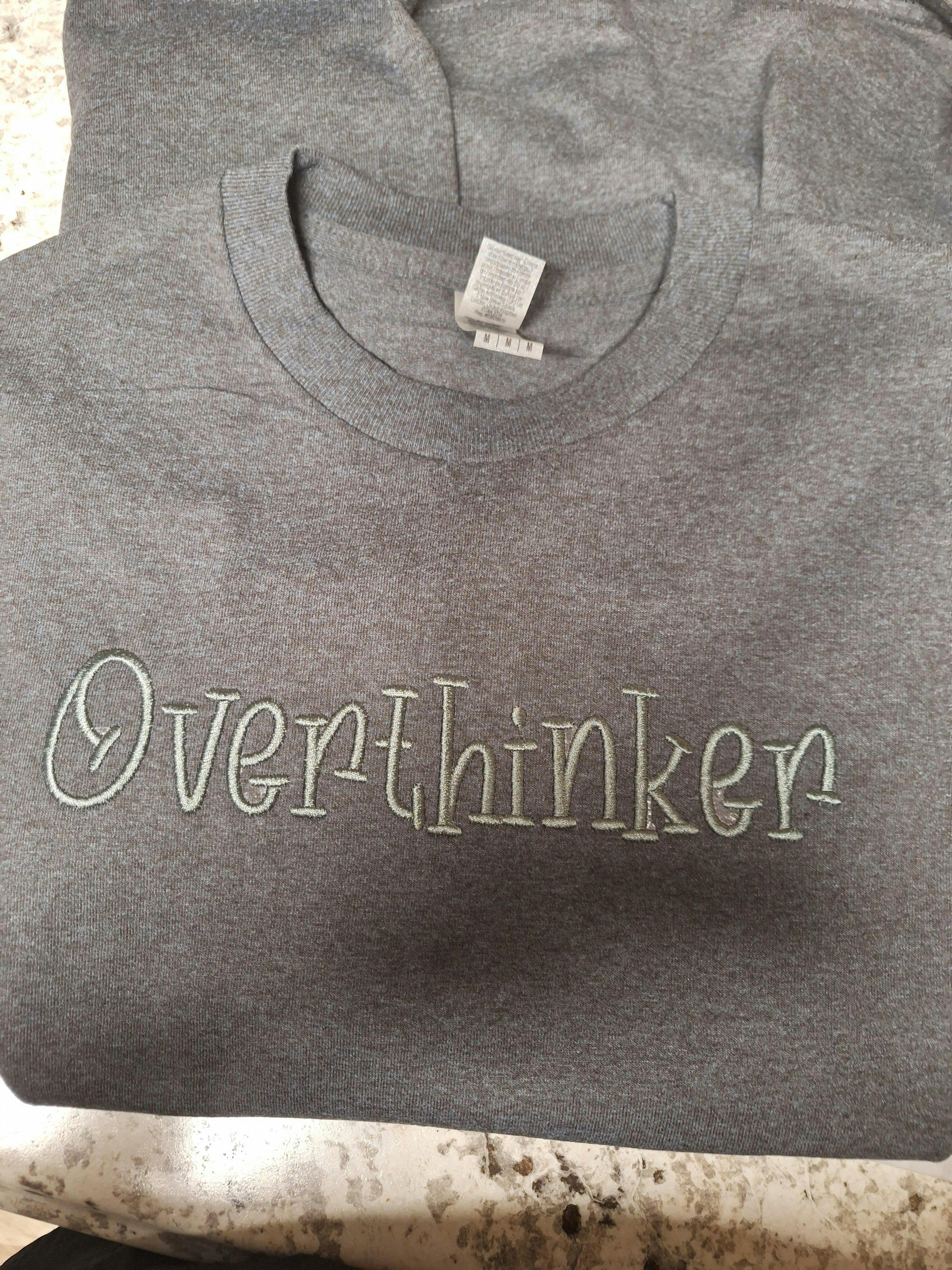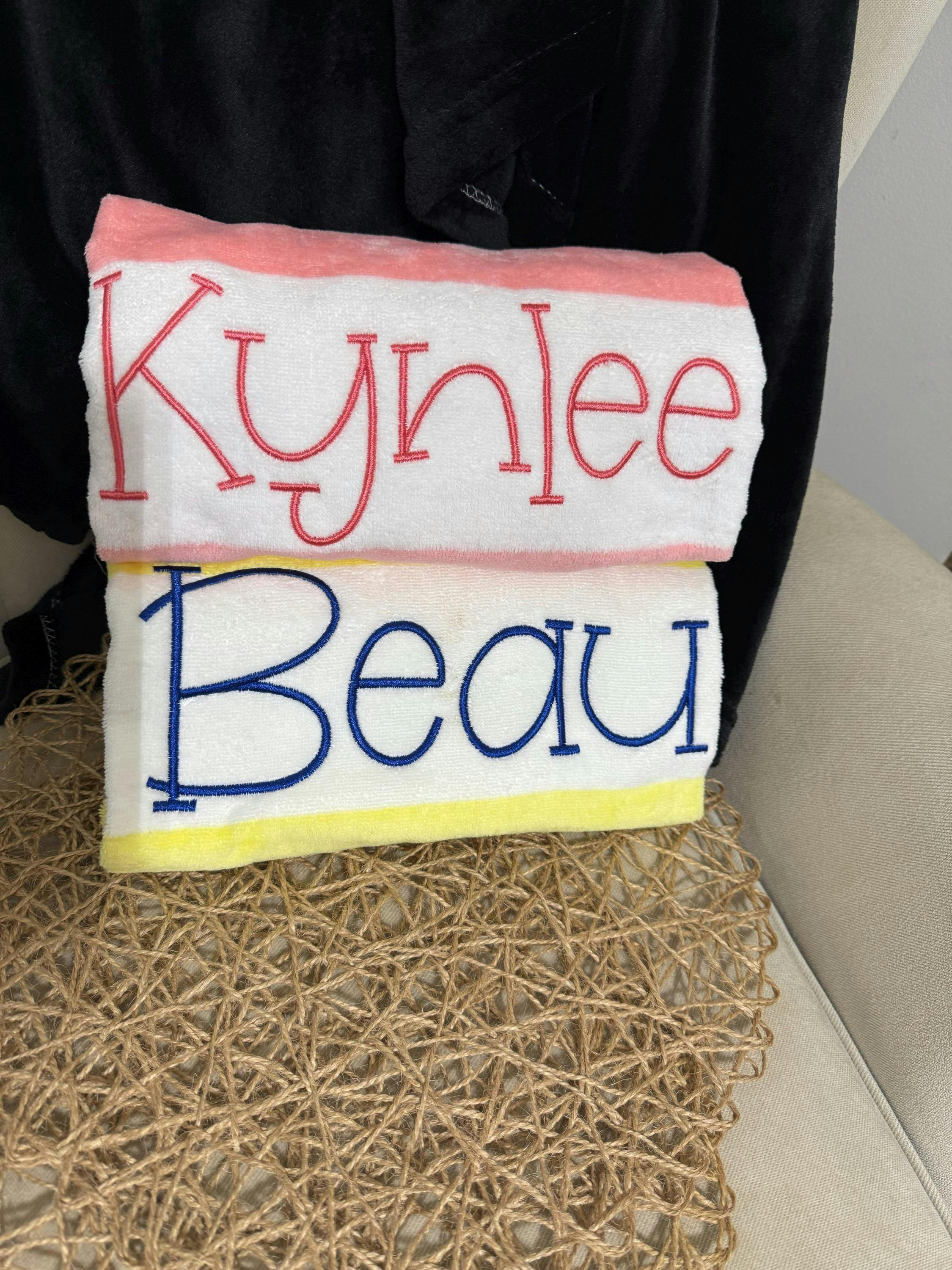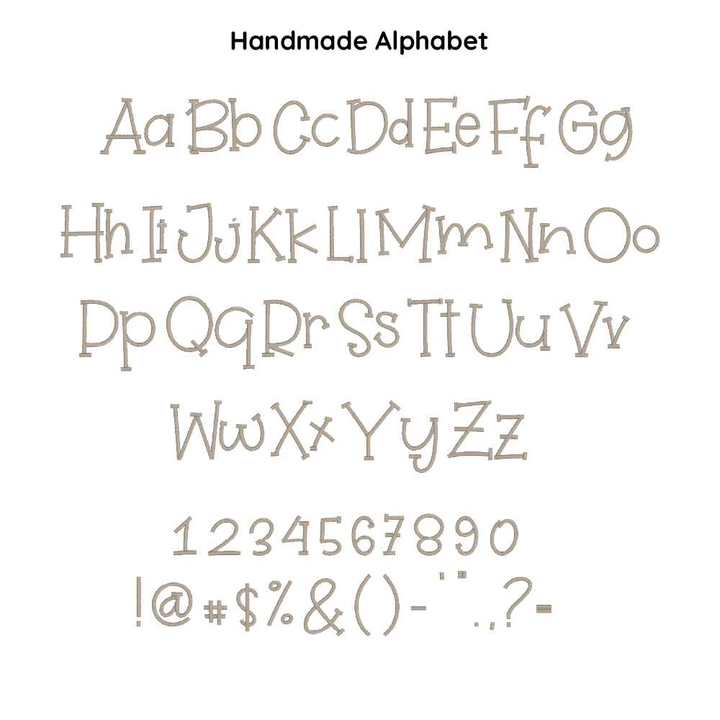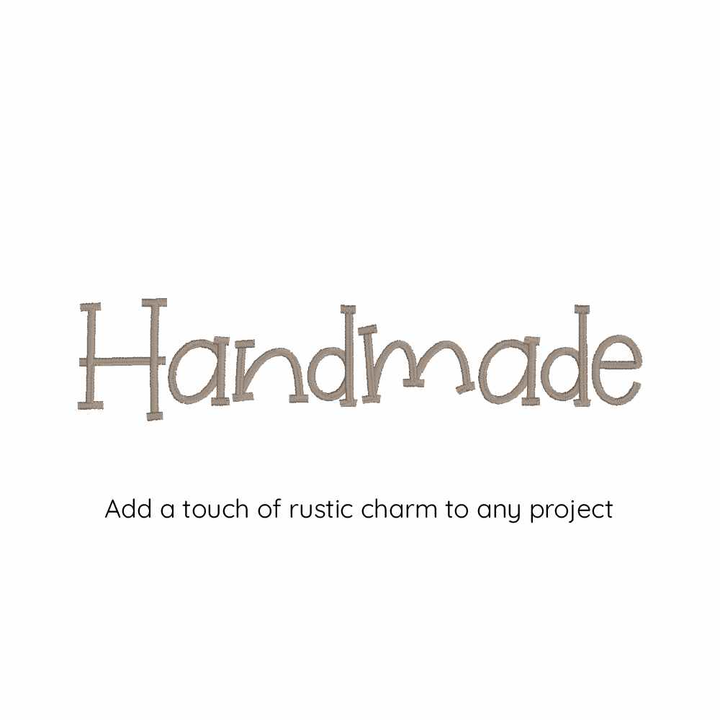
Photograph of Handmade embroidery font
Photograph of Handmade embroidery font alphabet
Handmade Digital Embroidery Font
Introducing Handmade, the perfect digital embroidery font alphabet for adding a touch of rustic charm to all your projects! This quirky and handwritten font features a unique farmhouse style that's sure to stand out.
With Handmade, you can add a personal touch to your embroidery designs, whether you're creating home decor, fashion accessories, or personalized gifts. This font is perfect for those who love the cozy and welcoming feel of a handmade aesthetic.
Crafted with care, Handmade is designed to work seamlessly with all major embroidery machines and software, making it easy to create beautiful and unique designs. The charming and rustic characters of this font are perfect for adding a touch of warmth to any project.